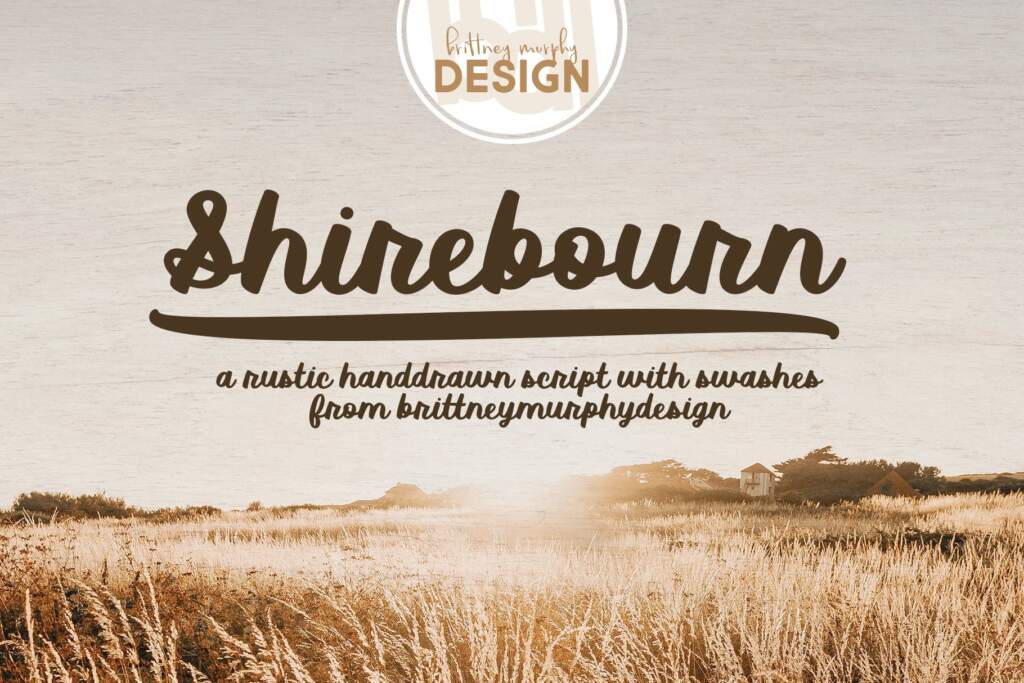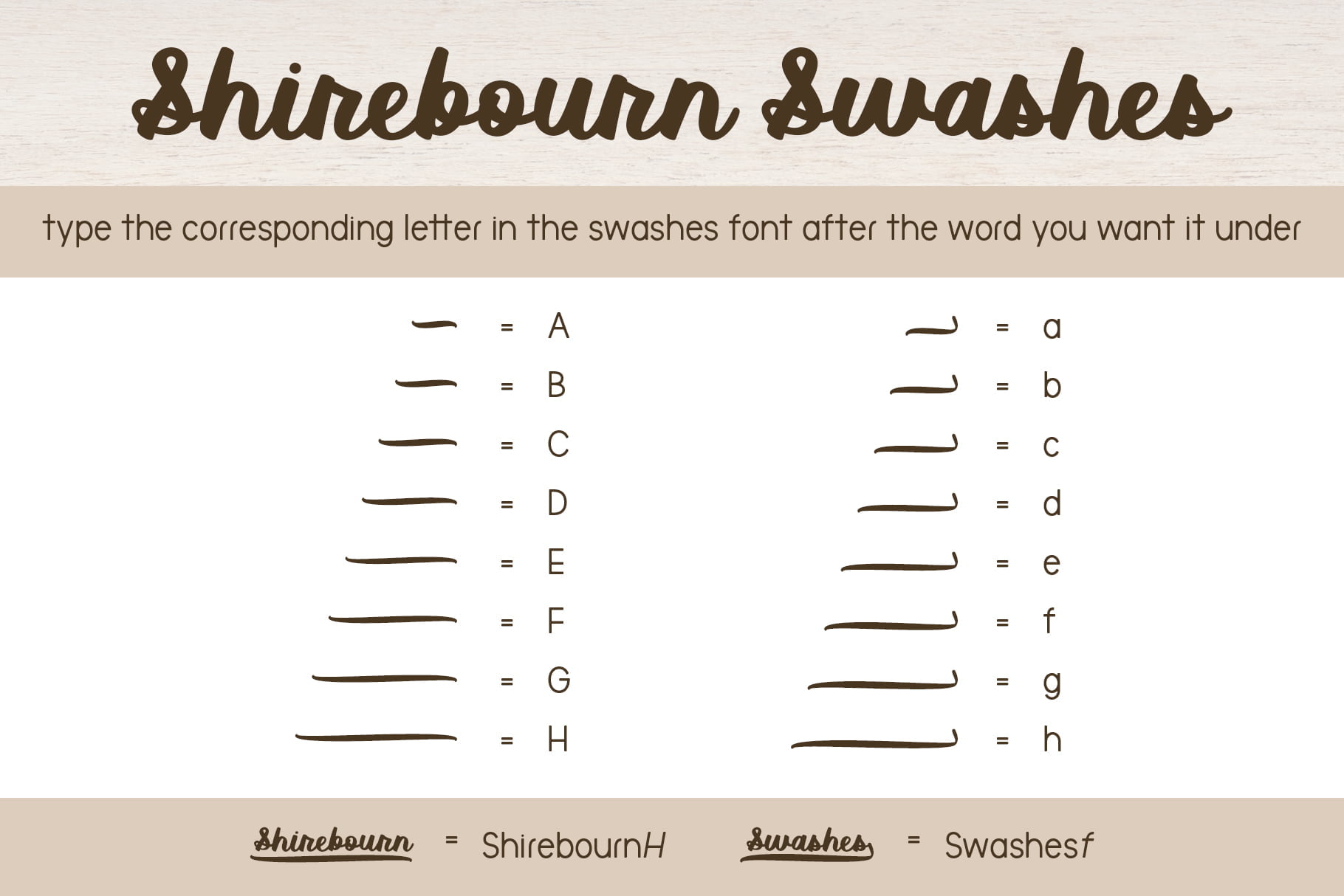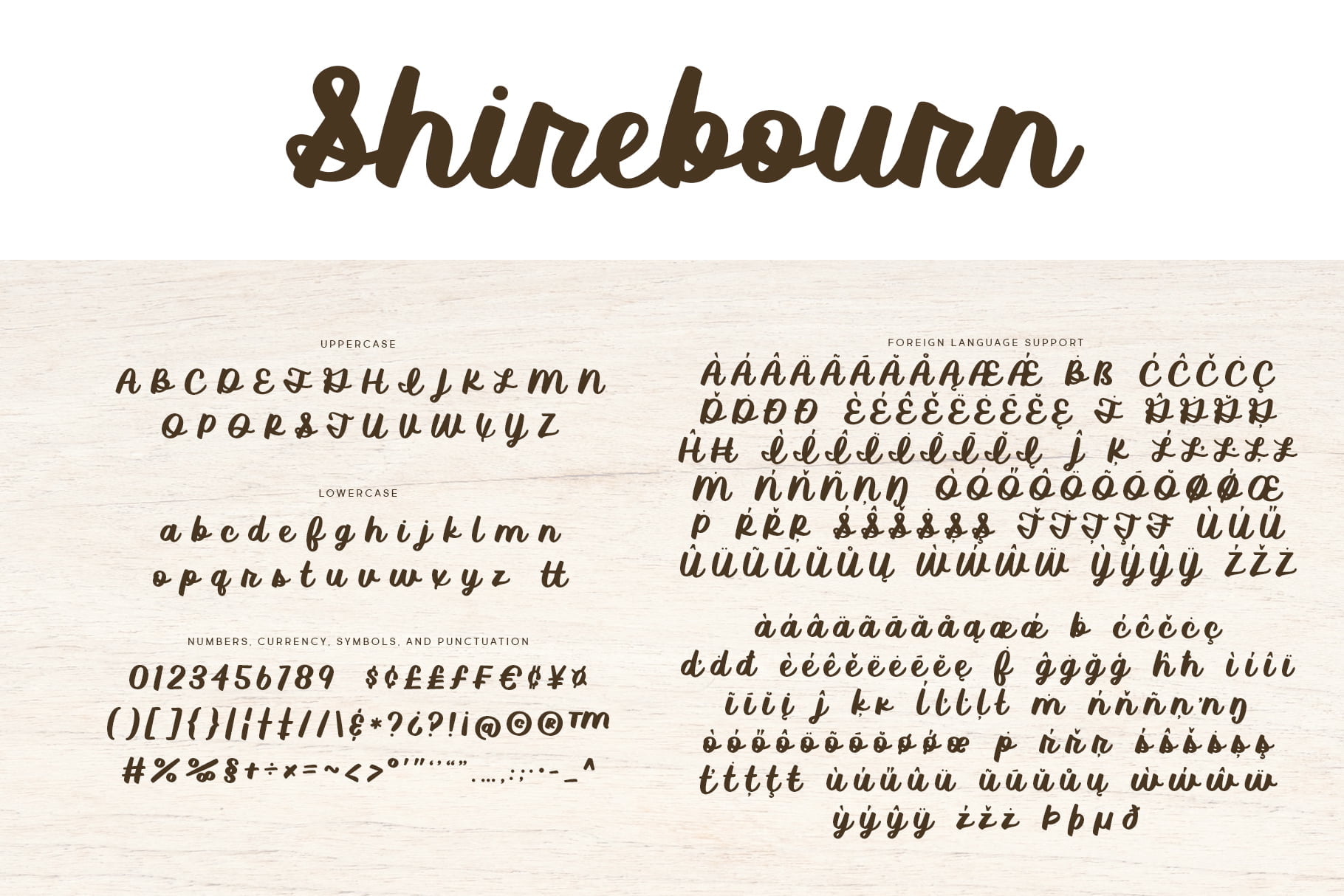
Shirebourn
Shirebourn is a rustic handwritten script with swashes from Brittney Murphy Design with an organic and earthy feeling. Drawn to look like natural handwriting with a thick marker, Shirebourn is great for your next graphic design project where you wish to give it a welcome and friendly feeling. The licensed version features support for most latin based languages, lots of punctuation and numbers, as well several swashes for you to choose from to accent your project.